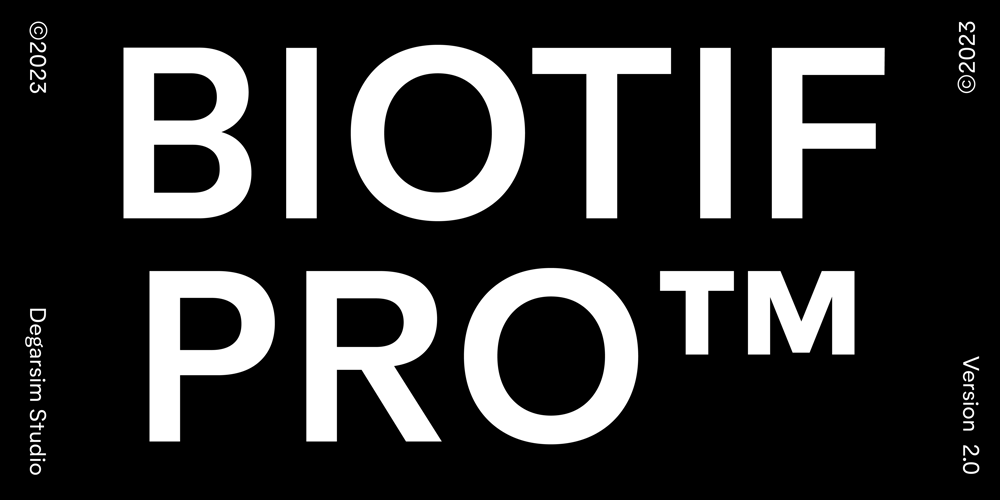
Biotif Pro Font Family was designed by Deni Anggara and published by Degarism Studio. Biotif Pro contains 17 styles and family package options. BIOTIF-PRO version 2.0a cutting-edge sans serif font meticulously crafted to embody the essence of modernity while drawing inspiration from both Modern Style and the Industrial Era in typographic and graphic design.Available in 16 weights ranging from Light to Black, BIOTIF boasts distinctive geometric features that lend it a contemporary appeal. But that’s not all—BIOTIF now supports variable font technology, allowing for seamless interpolation between font styles and enabling precise control over weight, width, and other parameters.Each weight is meticulously hinted and optimized for small screens, ensuring unparalleled legibility even at lower resolutions.Unlock a world of typographic possibilities with BIOTIF’s extensive OpenType features. From fractions to tabular lining, ligatures to alternate characters, circle numbers to symbols, arrows, and beyond, BIOTIF offers a versatile toolkit to elevate your design projects.Embracing inclusivity, BIOTIF supports a wide range of languages, including Latin Extended, Greek, Cyrillic, and Hebrew, making it a truly global typographic solution.Experience the perfect blend of form and function with BIOTIF-PRO version 2.0, empowering your designs with unparalleled versatility, sophistication, and now, variable font capabilities.